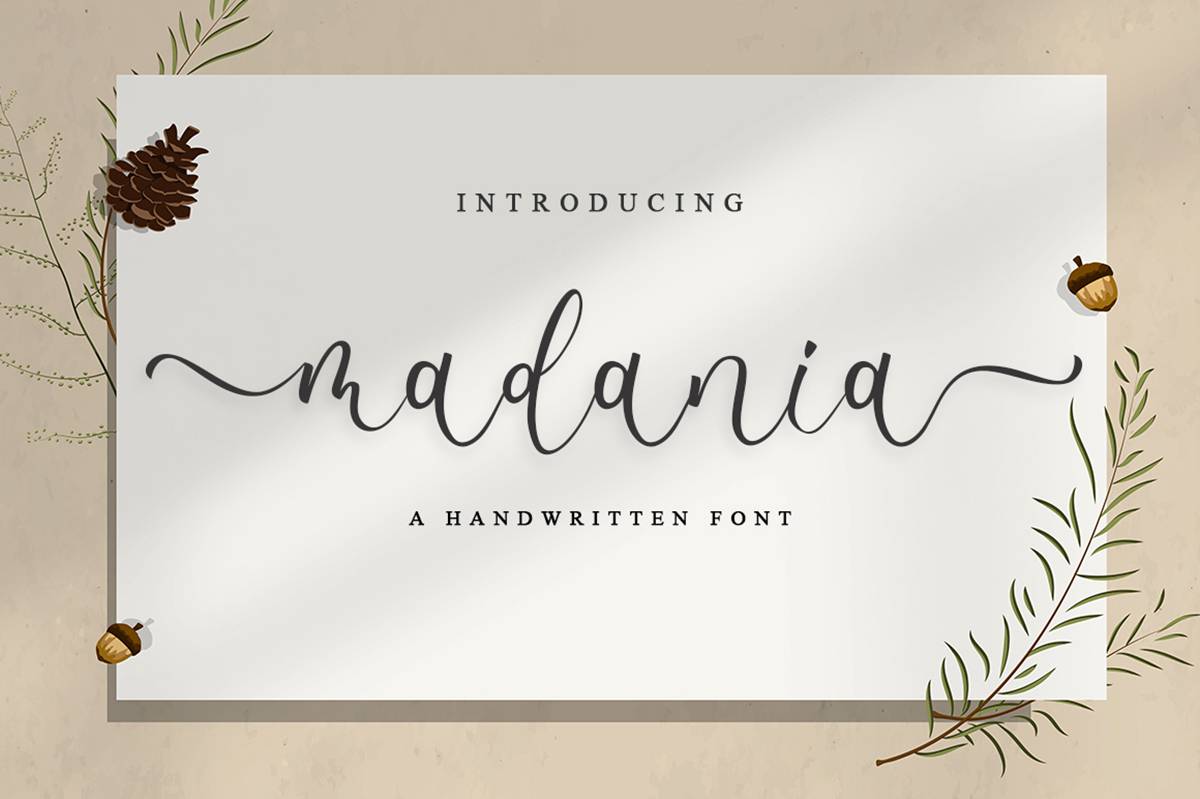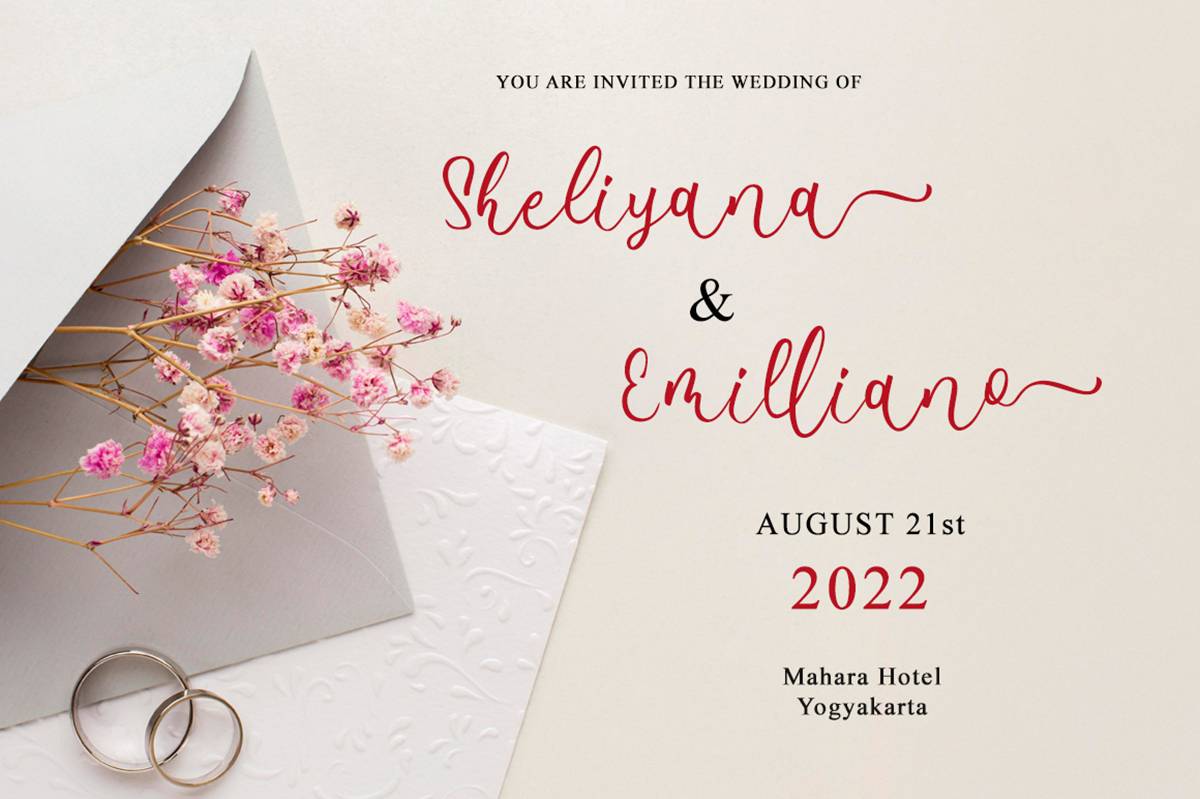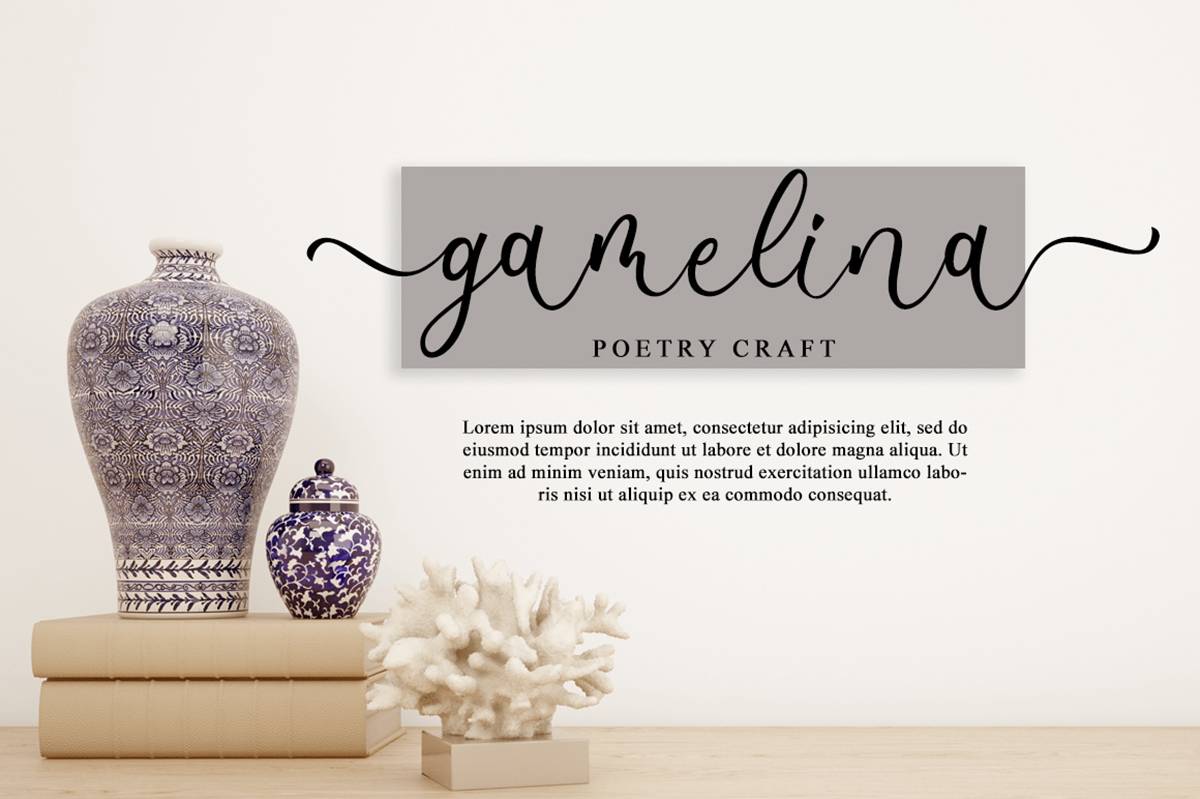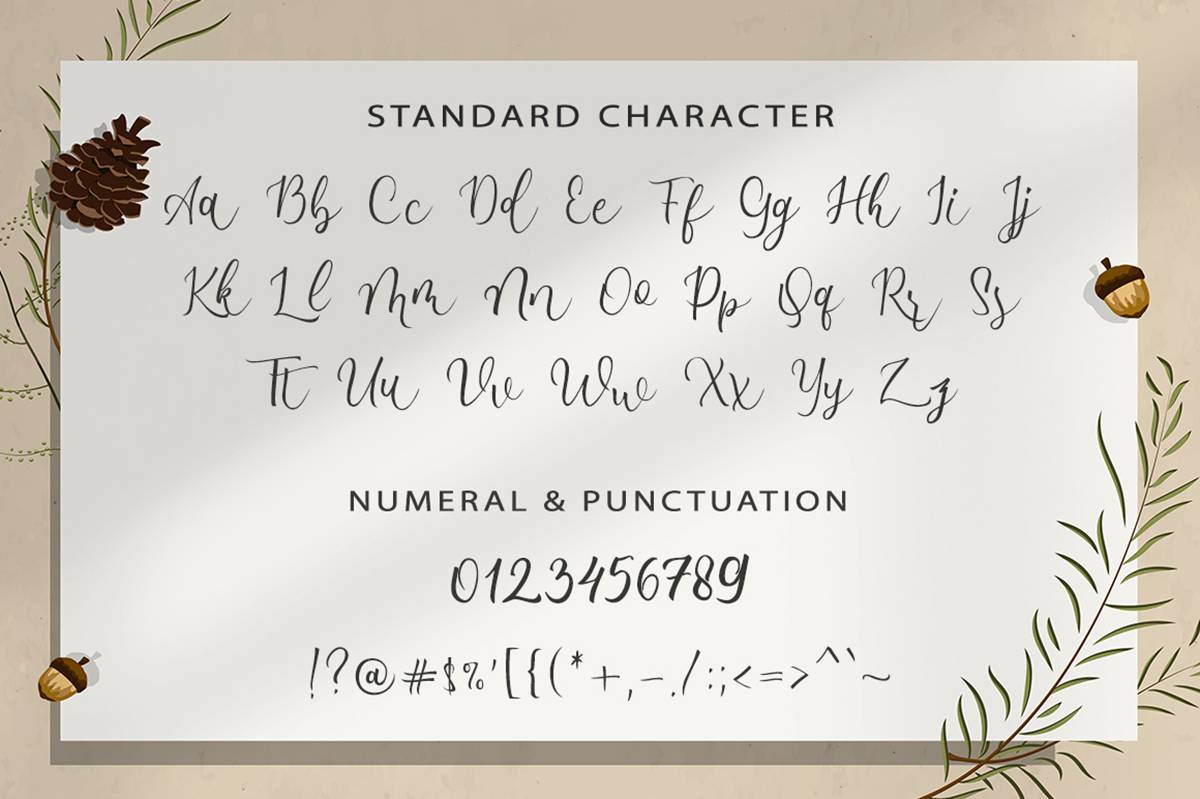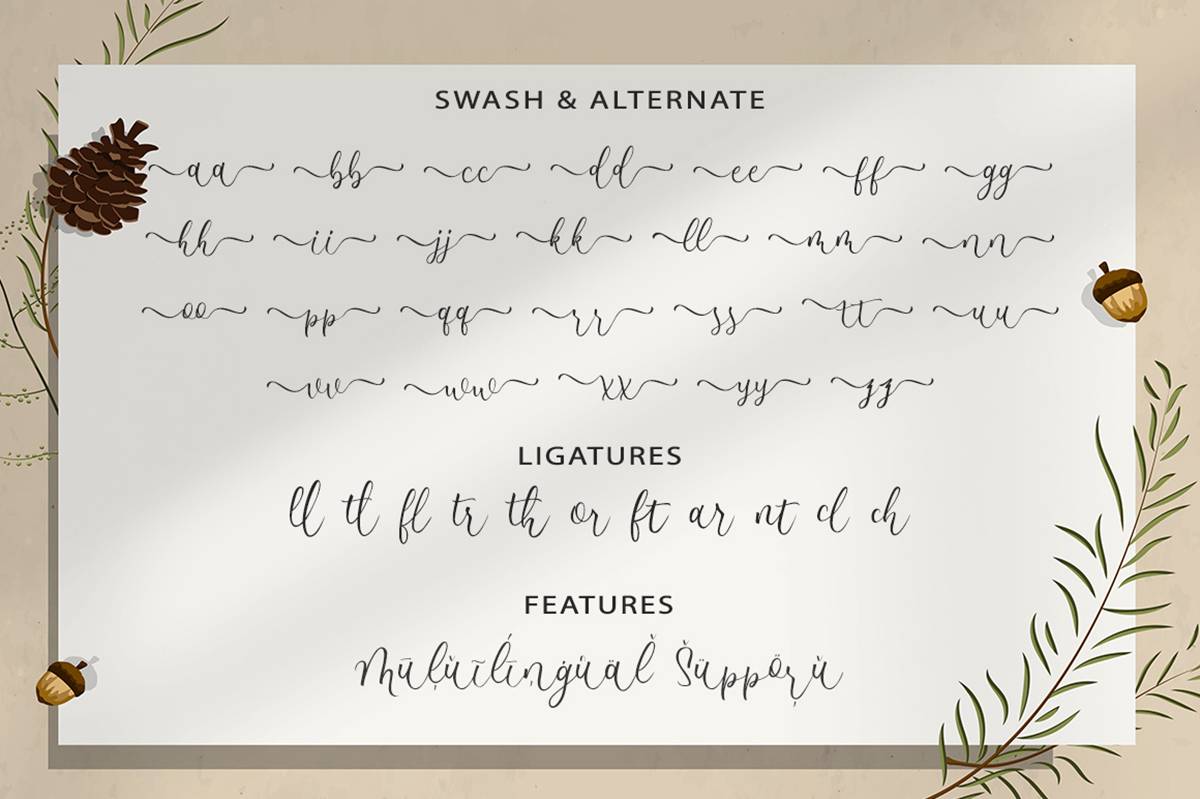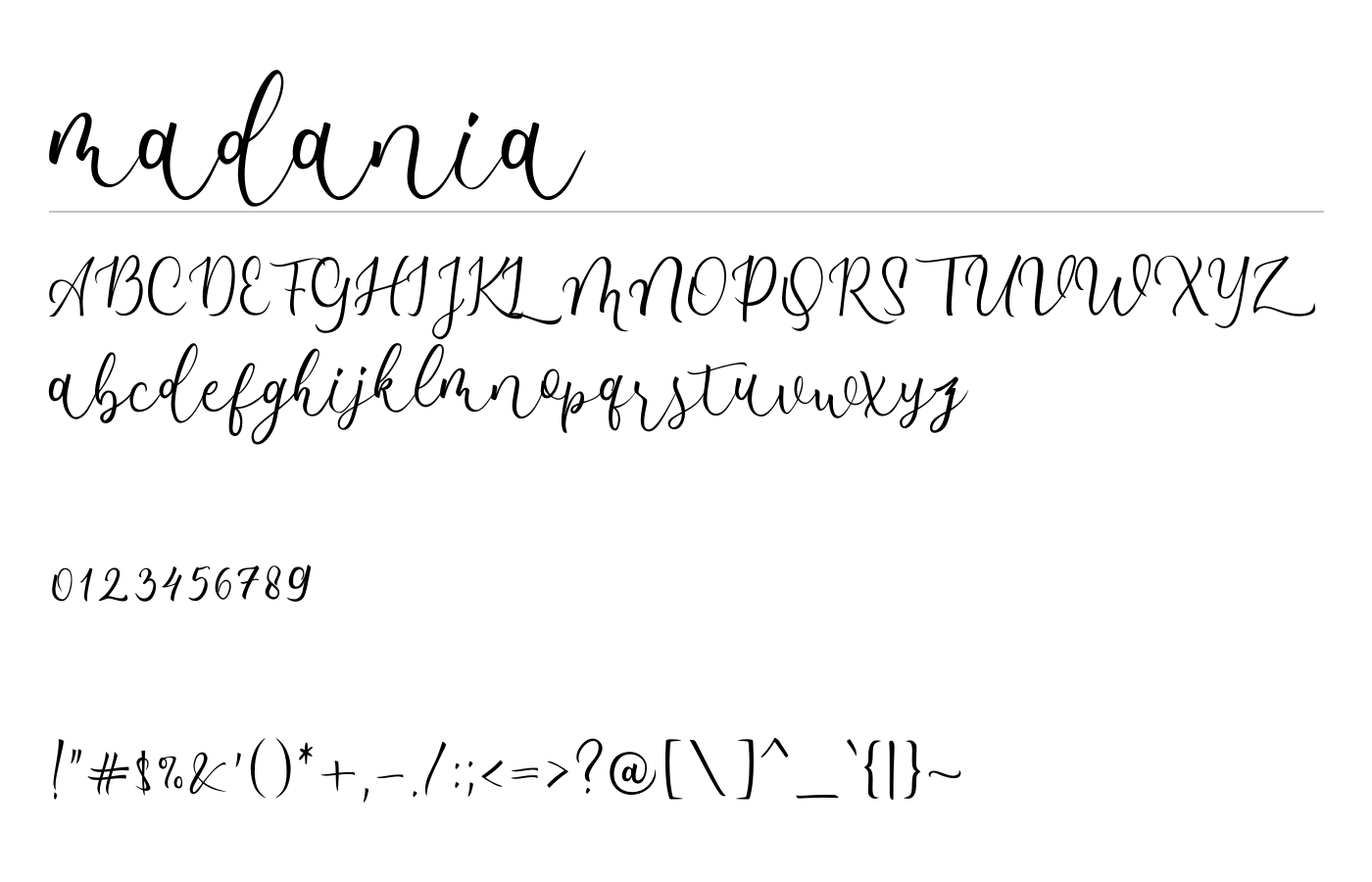
Madania Script is a delicate, elegant handwritten font with a graceful, flowing style and fine stroke contrast that evokes a personal, sophisticated touch. Its slender letterforms and fluid connections make it perfect for invitations, branding, and creative projects where a refined yet approachable feel is desired. This font works best in contexts that need a charming and feminine accent, adding warmth and personality to designs without overwhelming the content.
Madania Script Font
About Madania Script Font